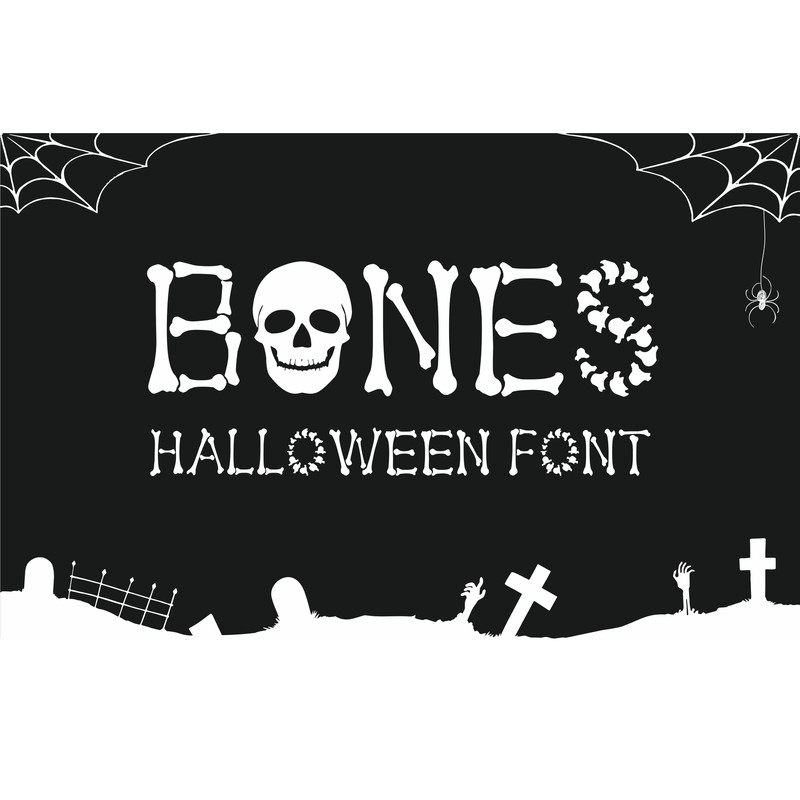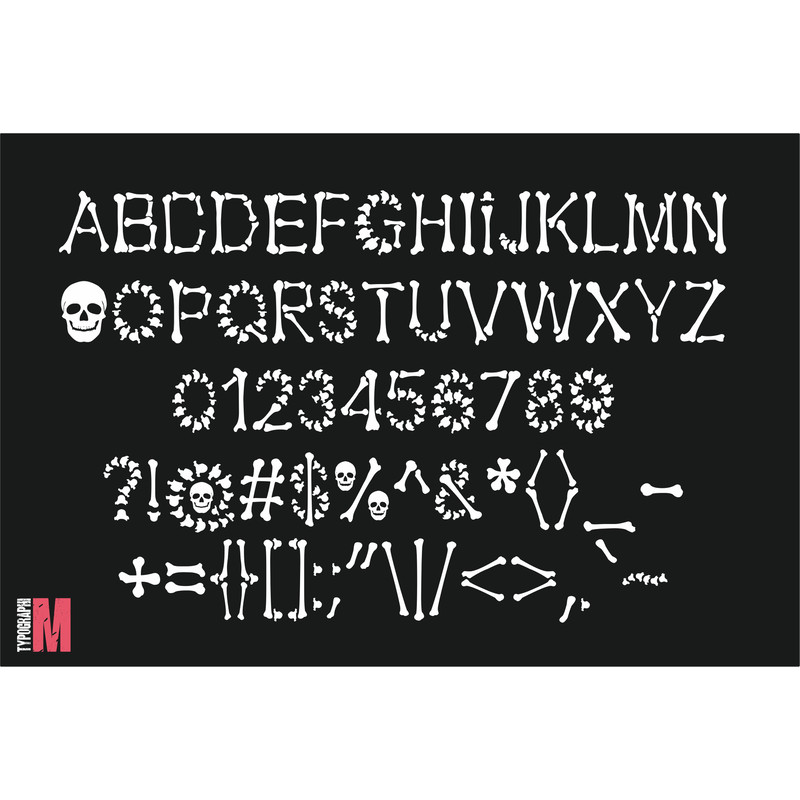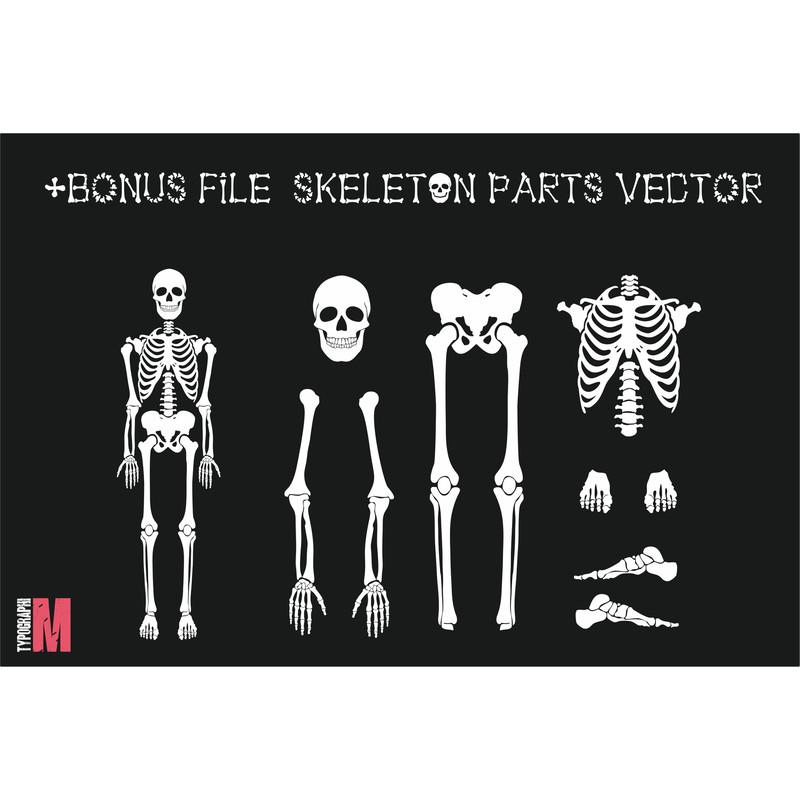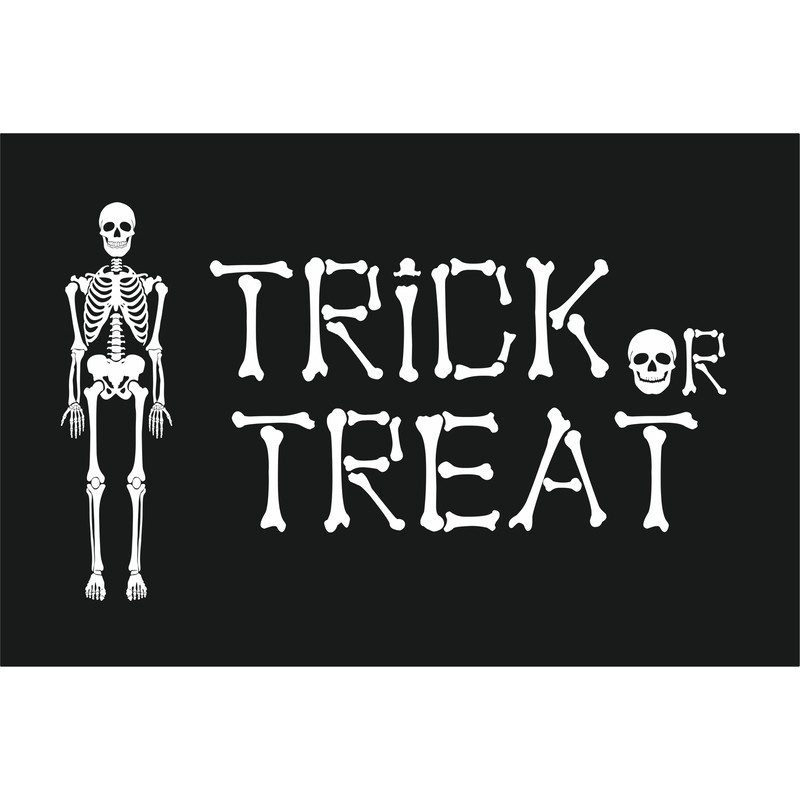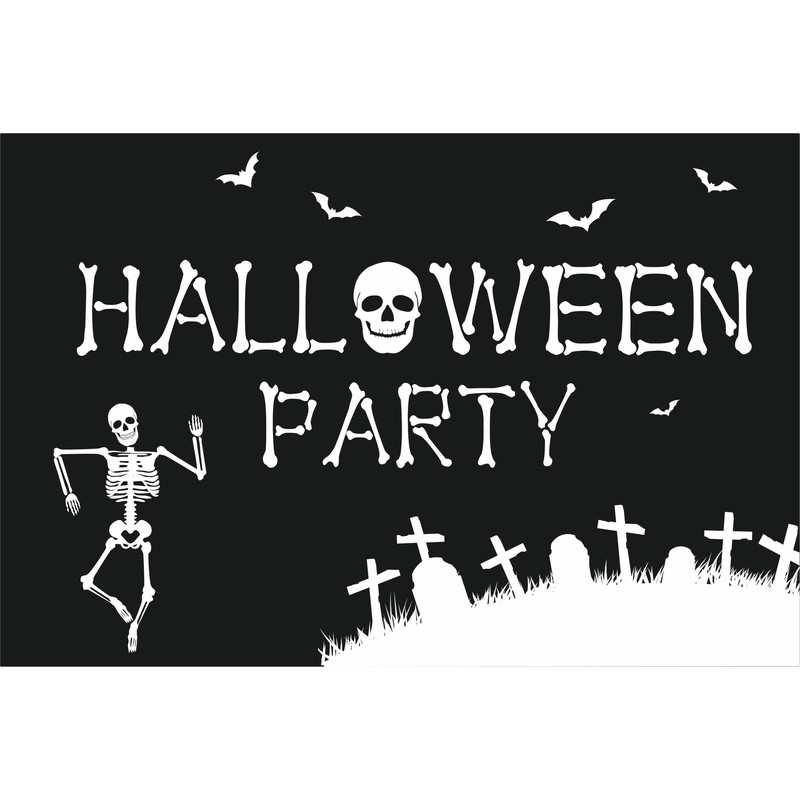
Bones Halloween is an incredibly unique and interesting display font. Spooky and a bit creepy, this font will make each of your designs stand out.
Bones Halloween font